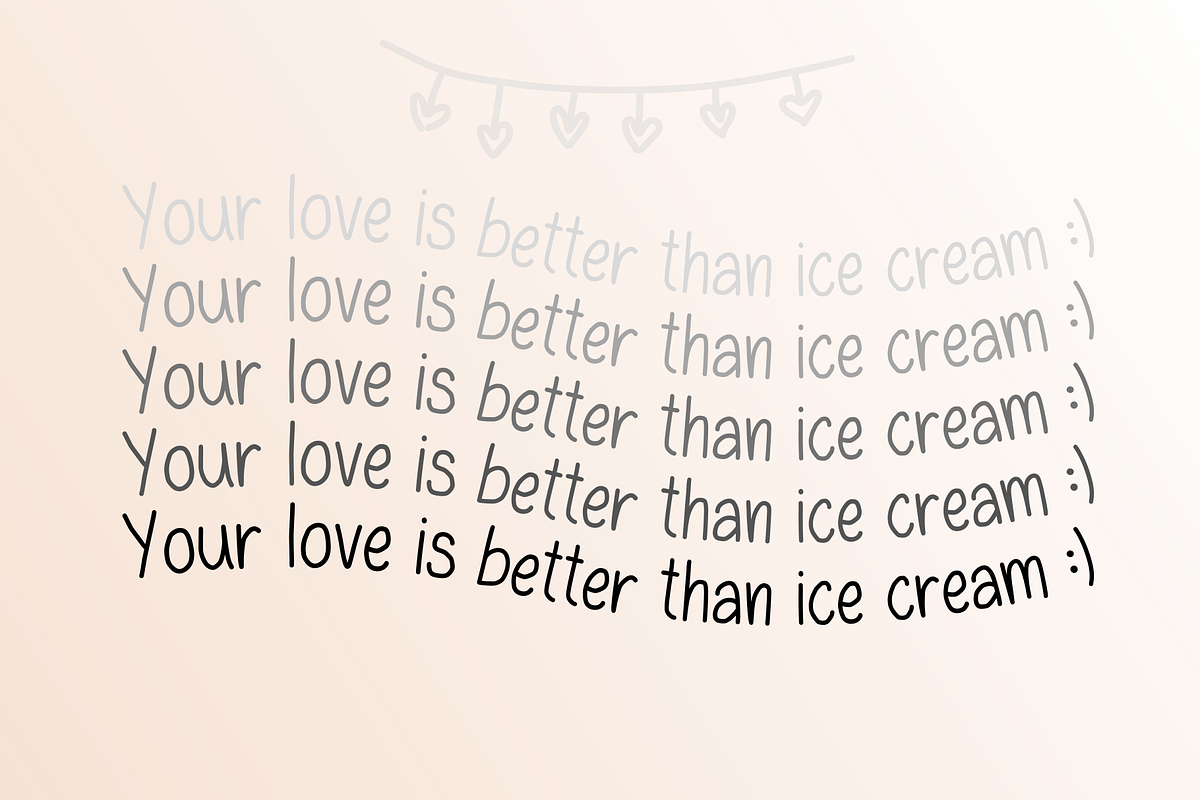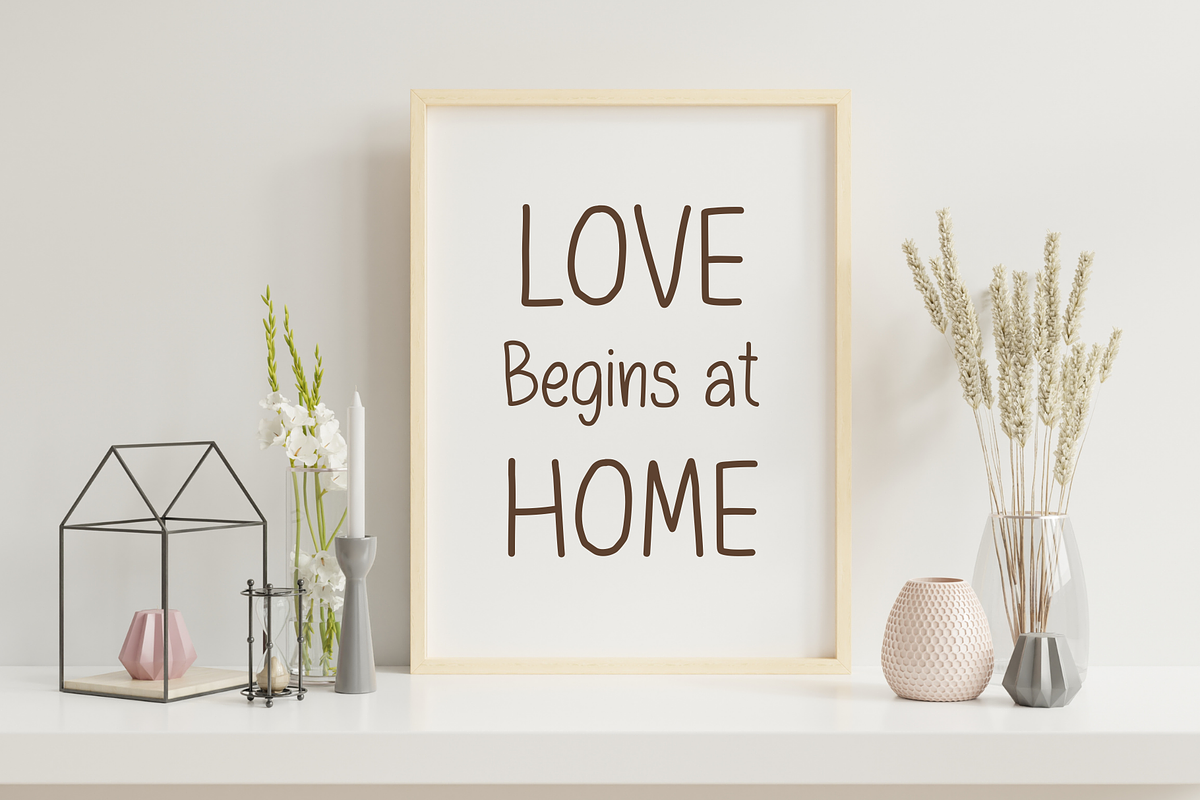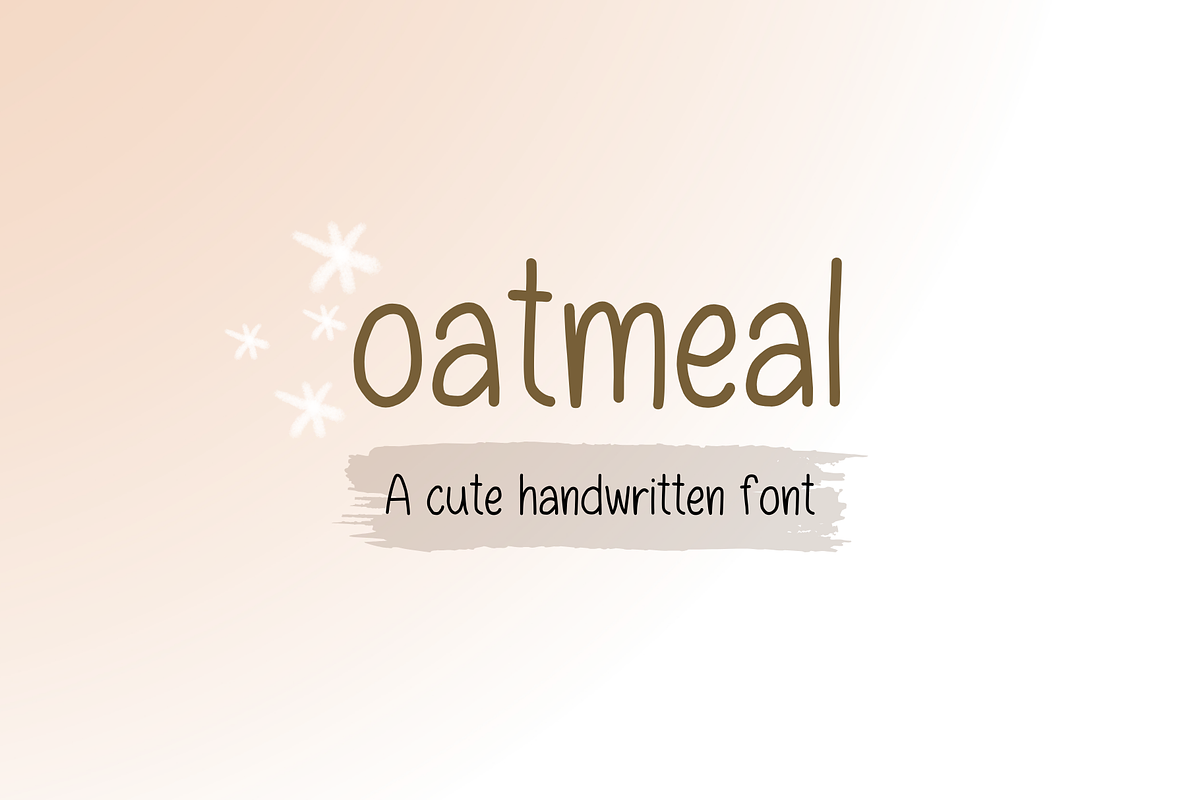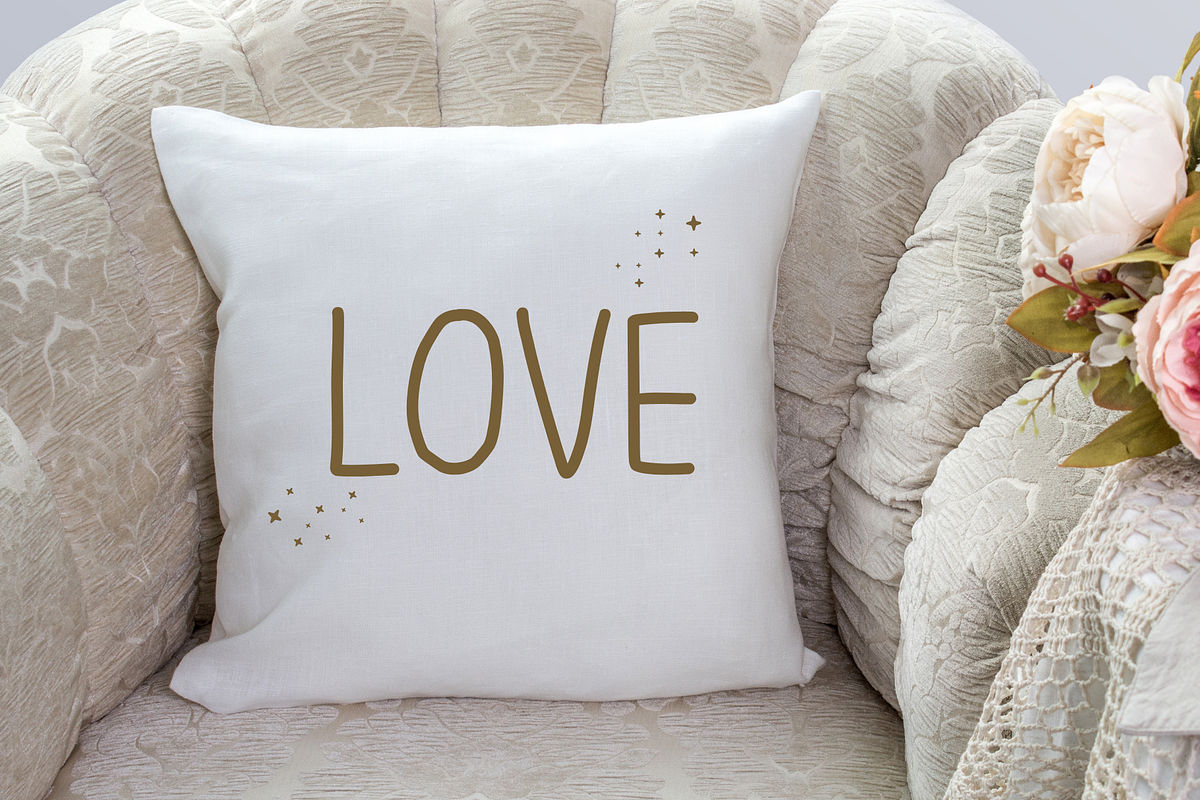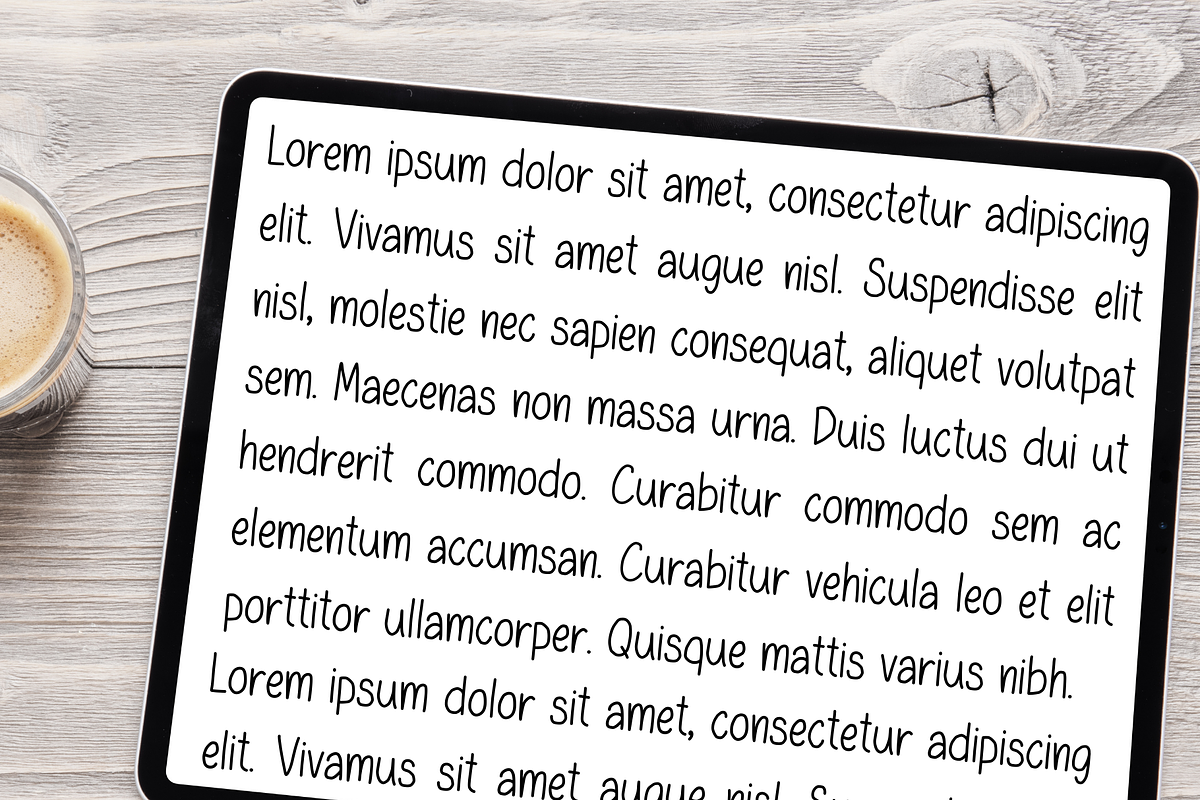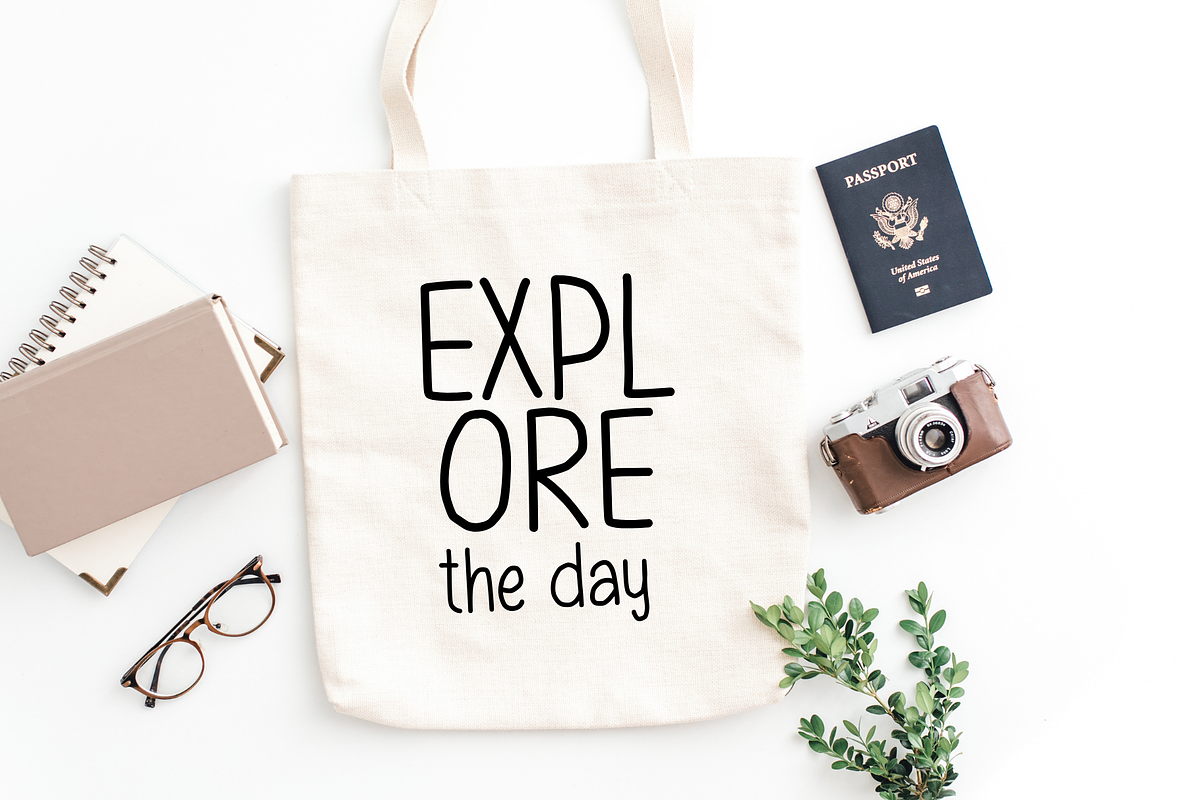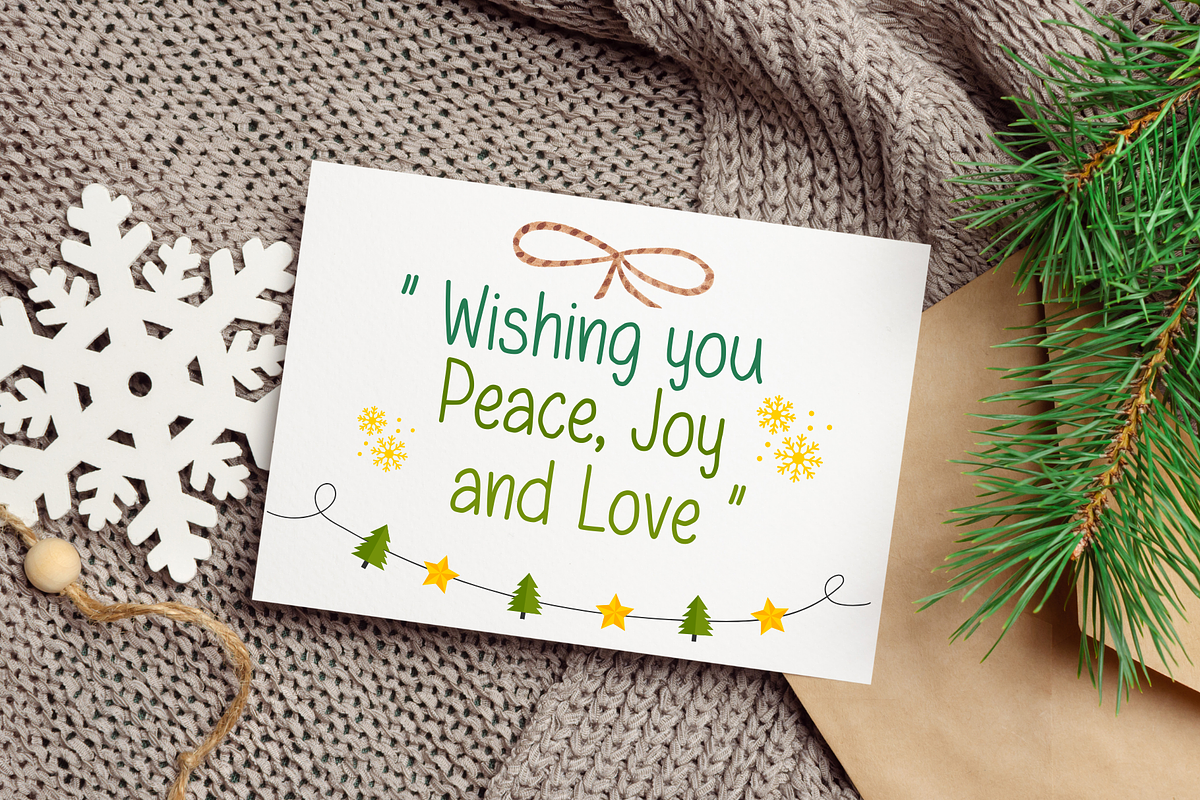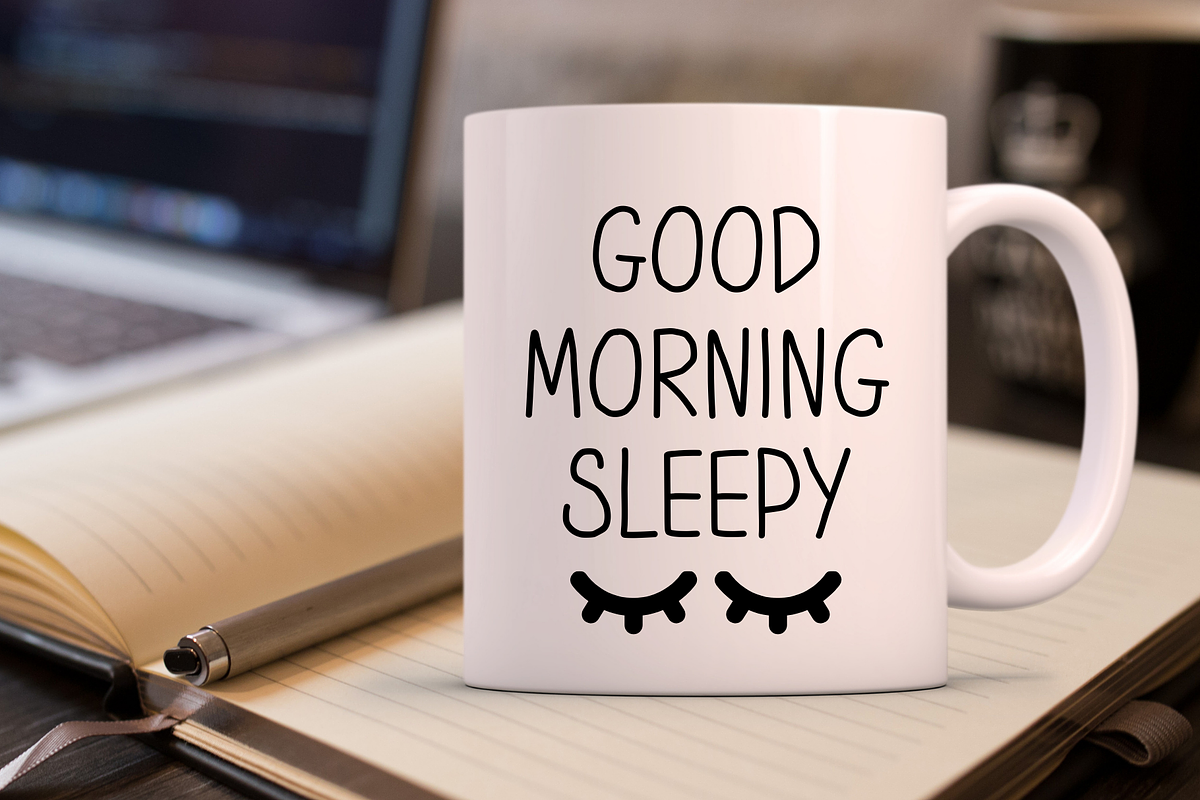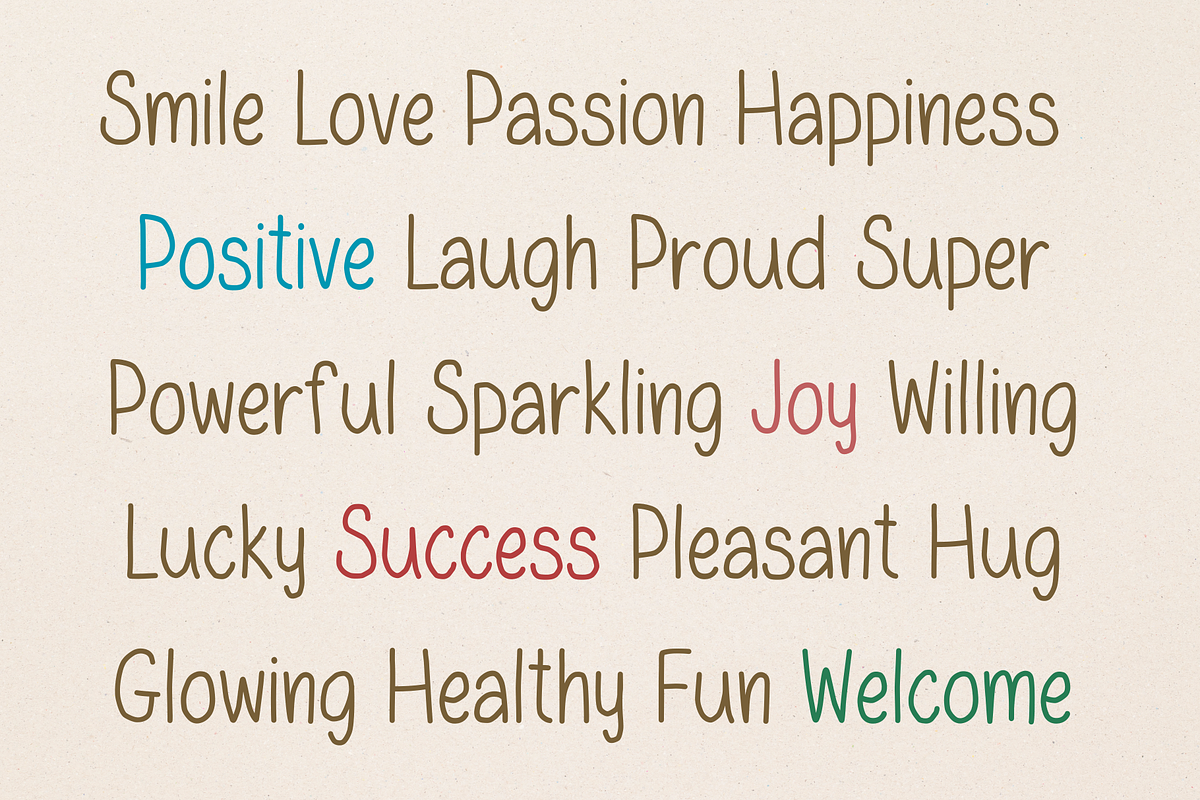
Oatmeal Cute Handwritten Font
Oatmeal is a handwritten font that is cute , playful , neat and clean. It is good for digital prints, Goodnote , greeting cards, quotes for facebook and Instagram, planner, journal and any occasion presentations.